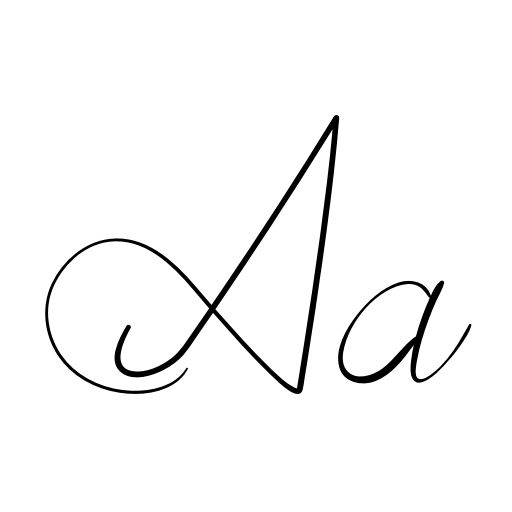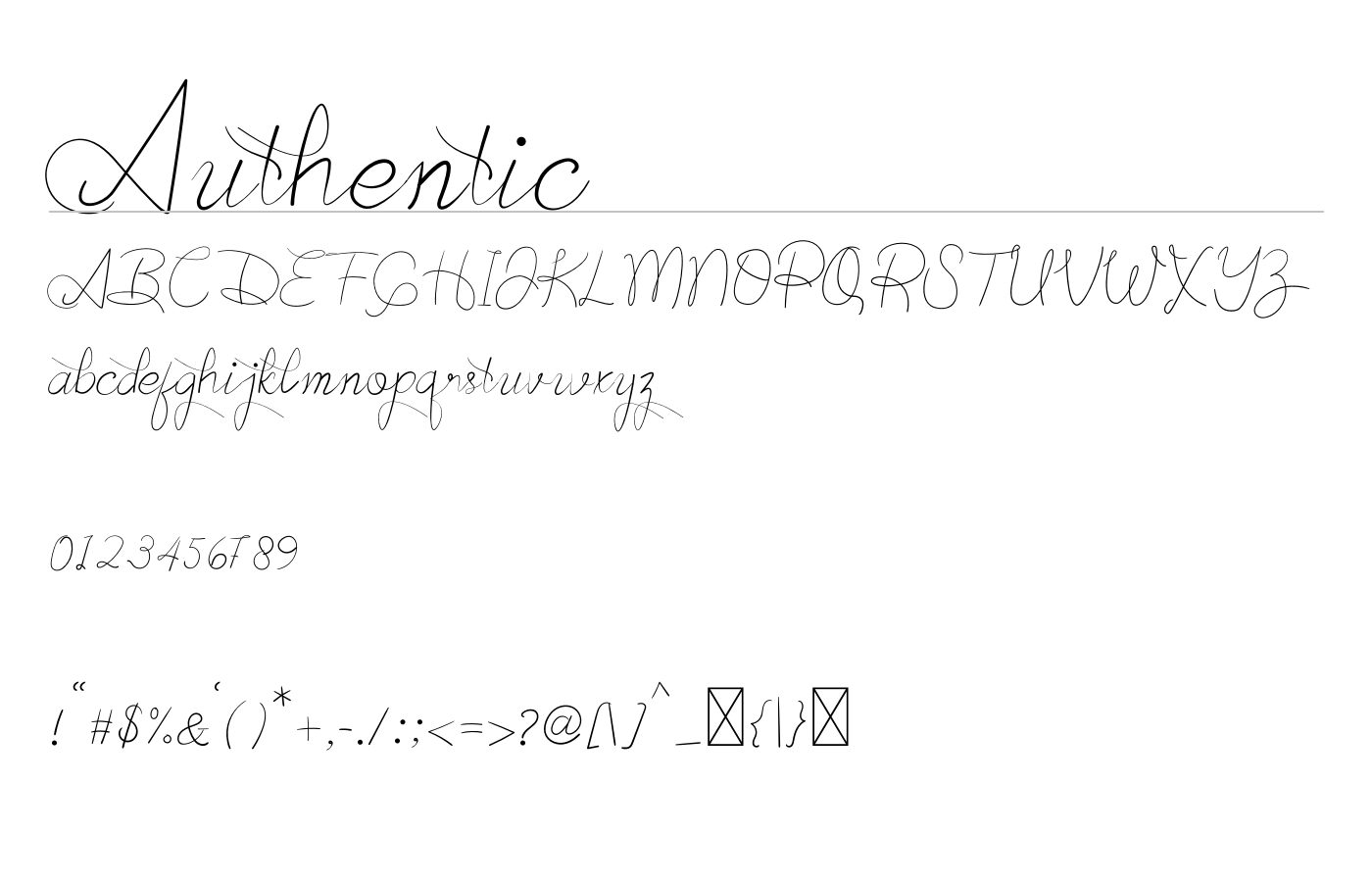
Authentic Font is a delicate, elegant script typeface characterized by its thin, flowing lines and graceful, handwritten feel. With slender strokes and intricate loops, it conveys a refined, sophisticated personality perfect for invitations, branding, and editorial projects that require a touch of classic charm and femininity. This font’s airy, stylish appearance is ideal for conveying authenticity and elegance in luxury or creative design contexts.
Authentic Font
About Authentic Font